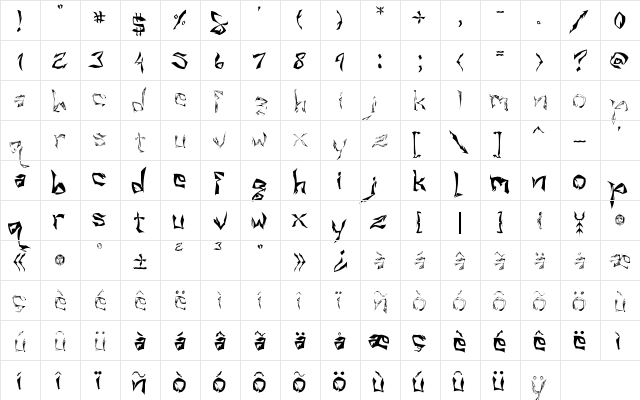
villain Regular
Design Context for villain Typeface
villain is a composed and adaptable typeface that performs quietly and consistently across a wide range of design contexts.
Pro Tip: Use villain in both headline and body roles to test its range before committing to a single application.